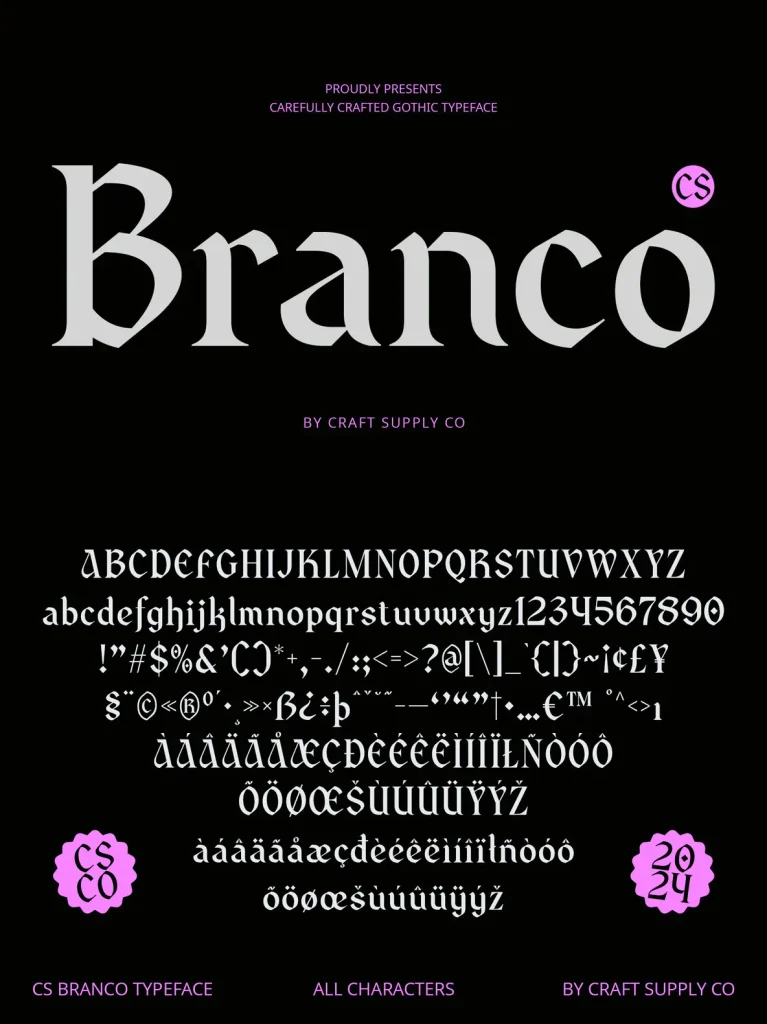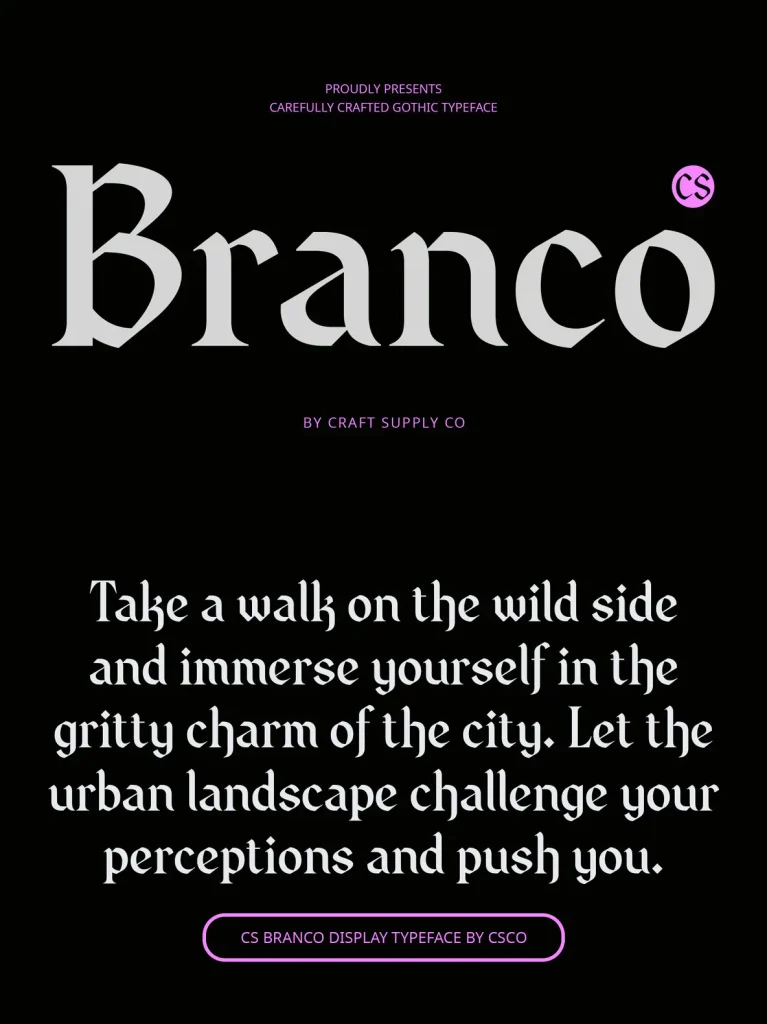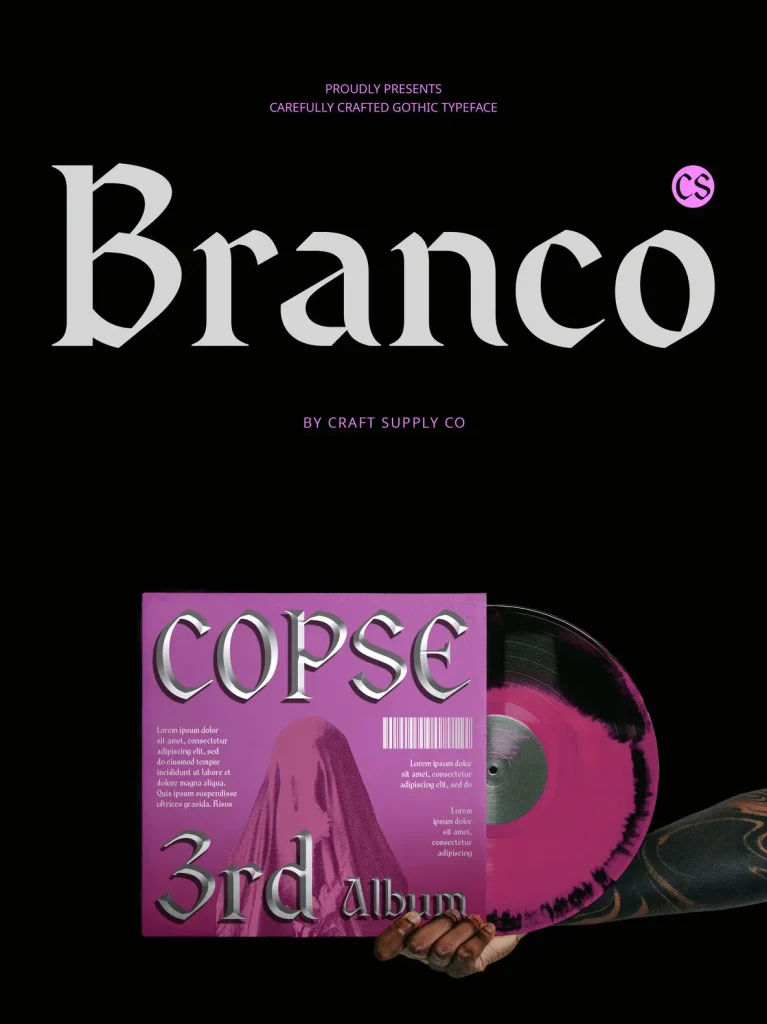
CS Branco — Gothic Grandeur in Display
CS Branco is a Gothic display serif font with a mysterious, elegant presence. It reflects the grandeur and complexity of Gothic design through dramatic sharp serifs, intricate ornamental lines, and a strong sense of medieval atmosphere. Inspired by the architectural splendor of Gothic cathedrals, CS Branco brings historical sophistication to typography for projects that need visual depth and a refined classical tone.
Its richly textured serifs and carefully shaped letterforms echo the detailed craftsmanship of Gothic artistry. Prominent design elements and unconventional shapes give the font a distinctive, ornamental character while keeping a strong display voice. CS Branco suits headlines, posters, high-end branding, thematic event materials, and artistic projects that call for classic elegance, dramatic impact, and a character-rich visual style.
Uppercase and lowercase characters
Numerals and Punctuation (OpenType Standard)
Accents (Supports Multilingual Characters)